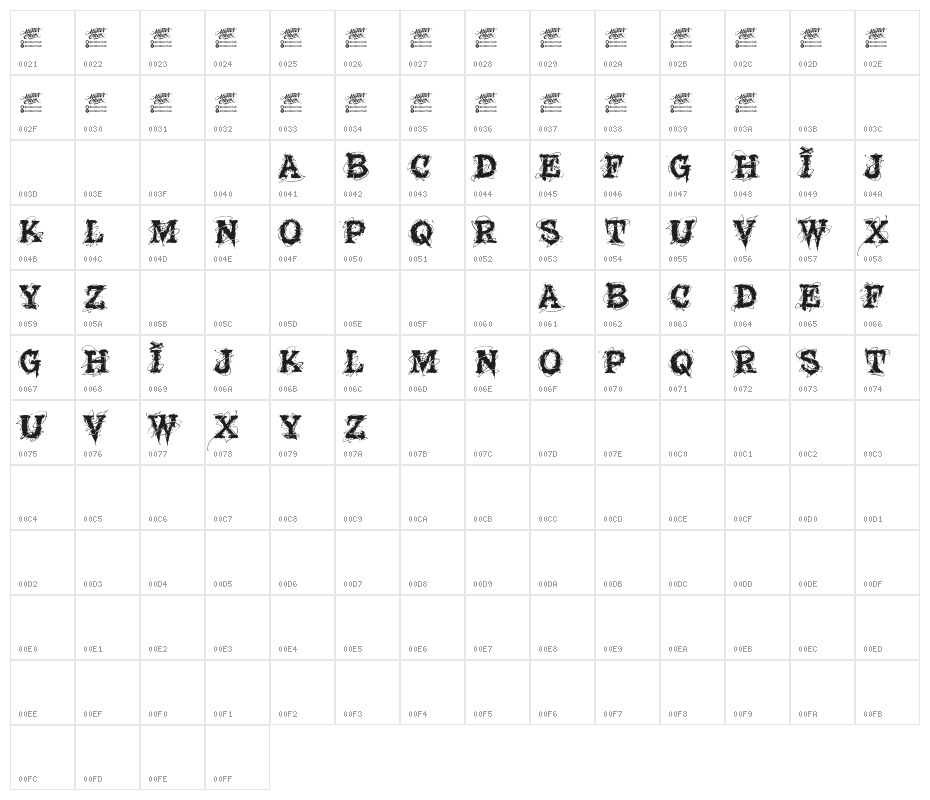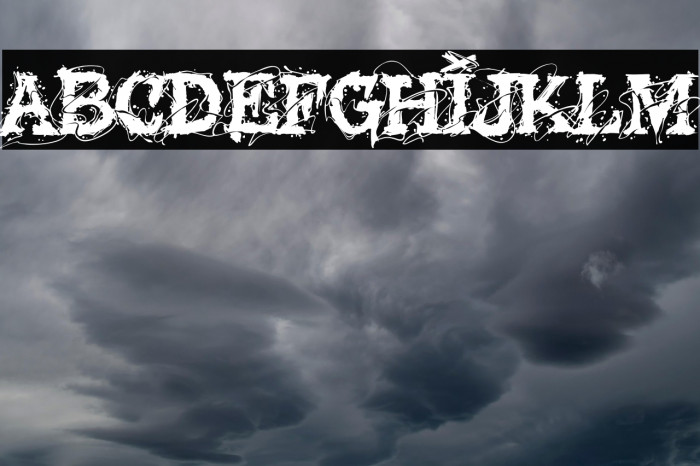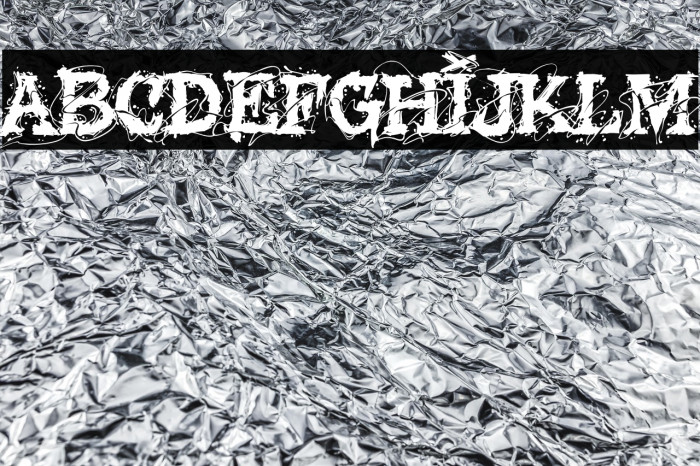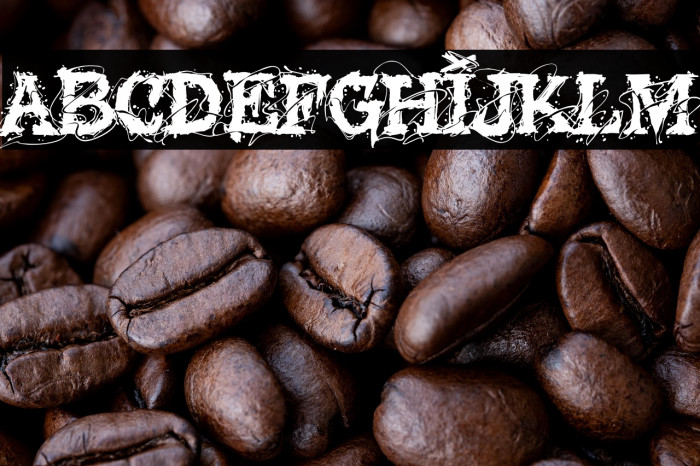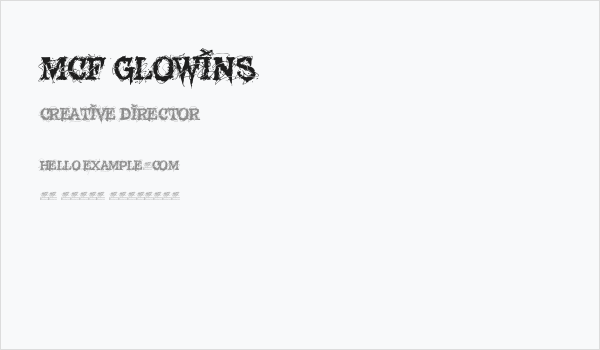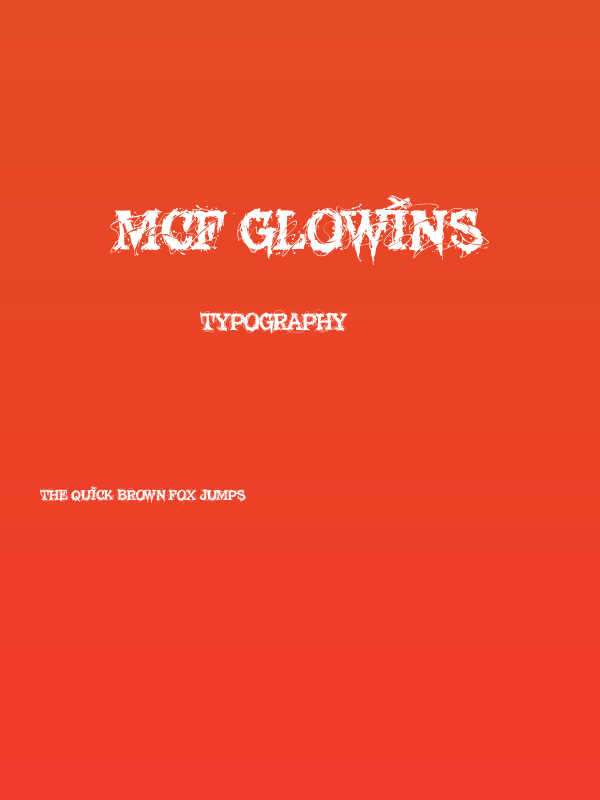
MCF Glowins Font
MCF Glowins Description
This font features a bold, graffiti-inspired style with intricate, chaotic detailing. The letters are heavily stylized with sharp edges and splatter-like embellishments, giving it an urban, rebellious feel. The uppercase letters are particularly striking, with each character appearing as if it has been painted with a brush, complete with drips and splatters. The font's design is highly decorative, making it ideal for projects that require a strong visual impact. Its unique style is reminiscent of street art, making it perfect for creative and edgy designs.
| Overall Style | Urban, Rebellious, Artistic |
| Use Case | Logos, Posters, Album Covers |
| Proposed Projects | Ideal for street art designs, album covers, posters, and urban-themed branding. |